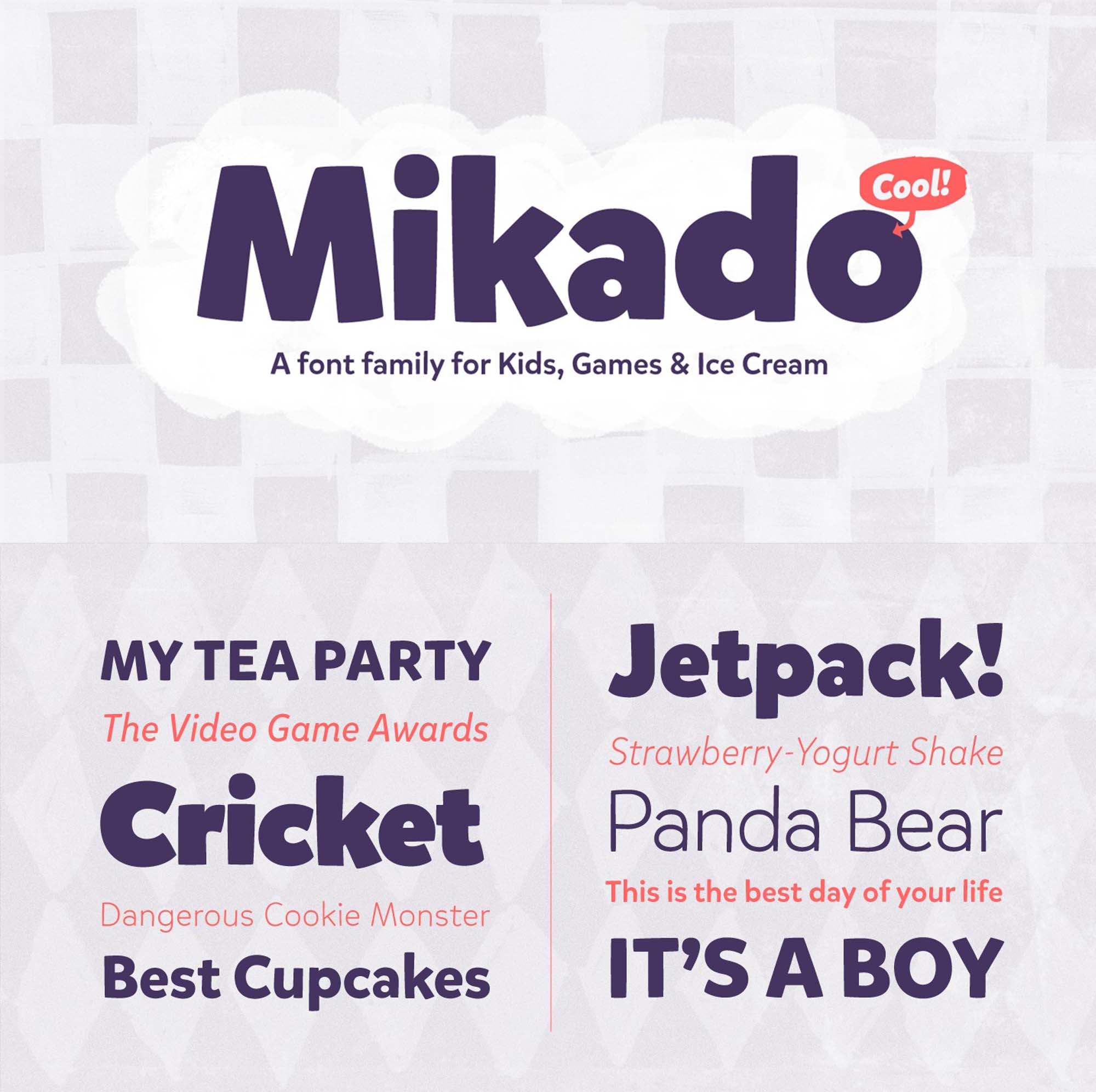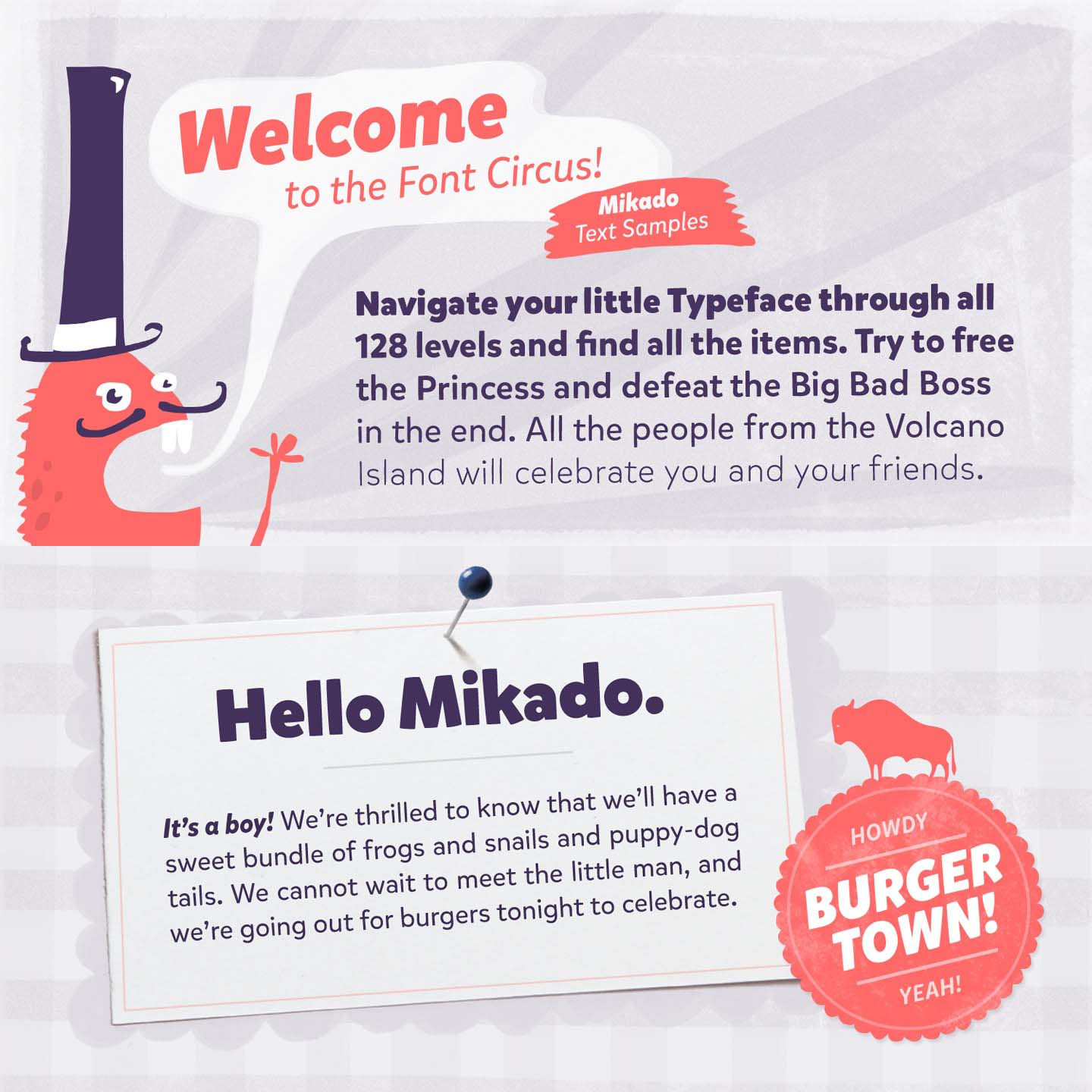
Mikado Kids Font
This is a unique stylish Mikado font. This font is perfect for adding a personal charm to your logos, branding, social media, advertisements, invitations, product designs, product packaging, etc. Have fun using it!